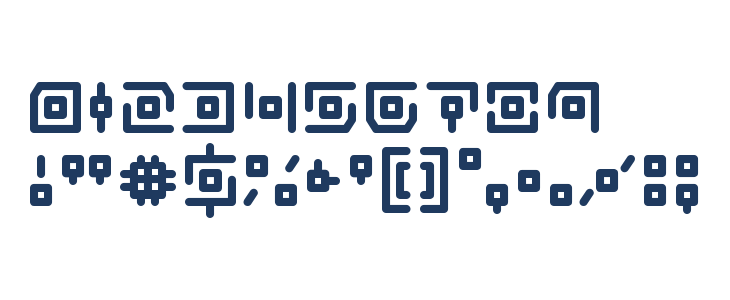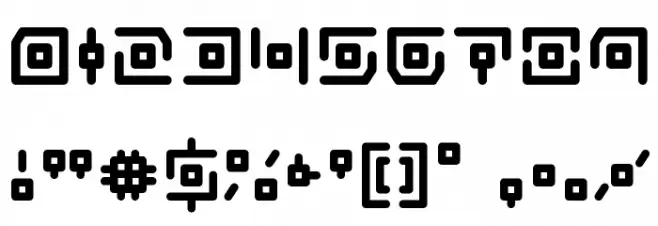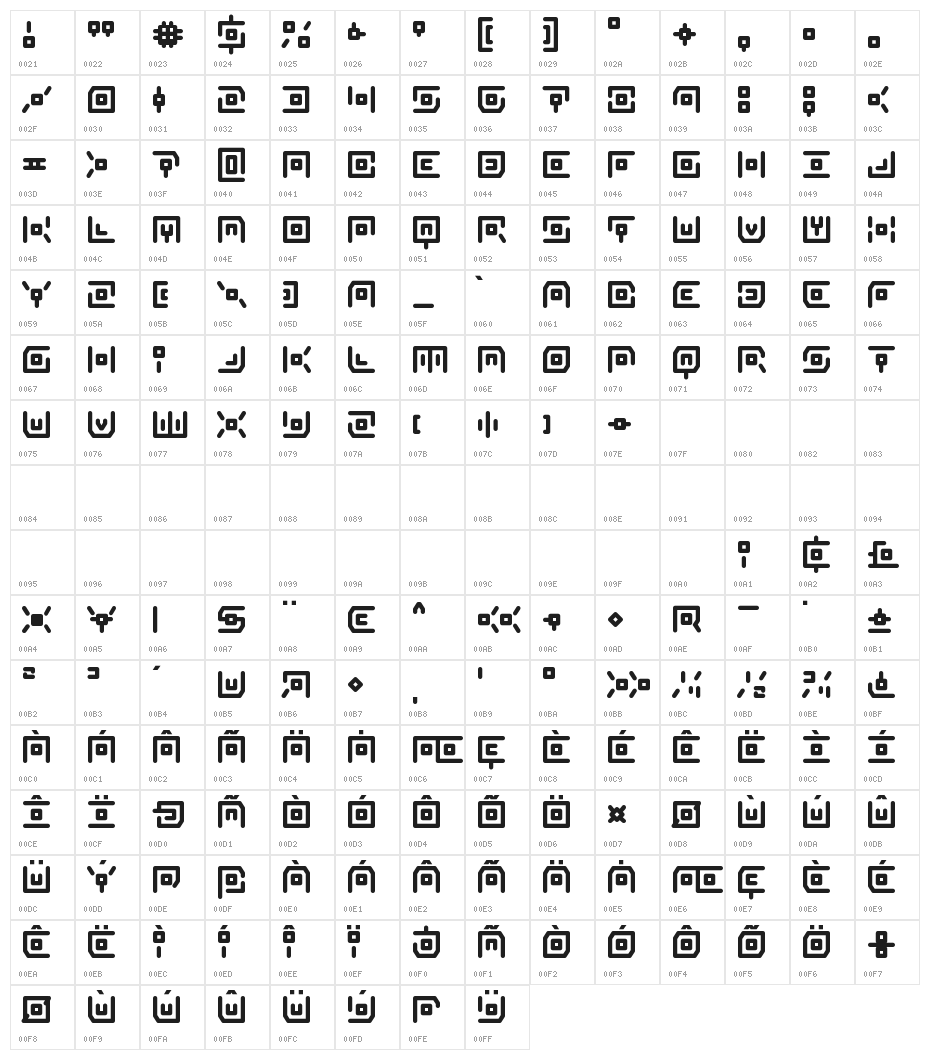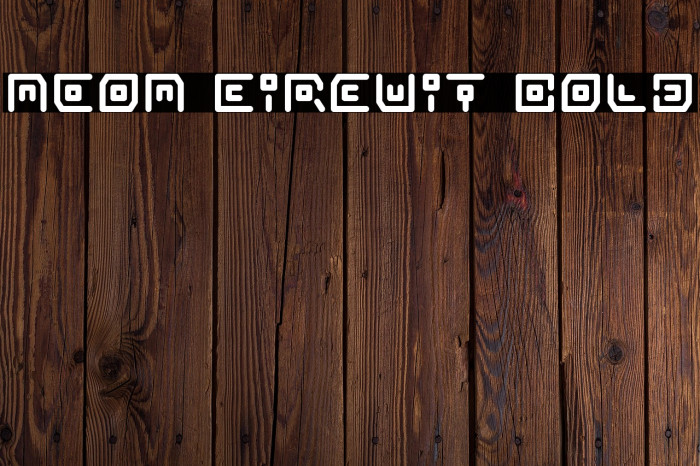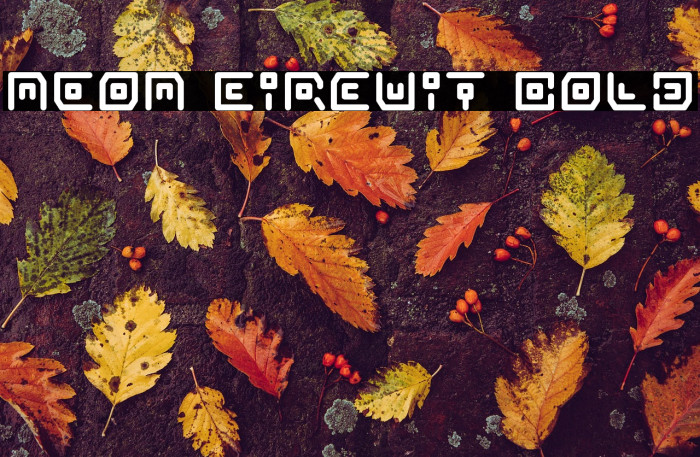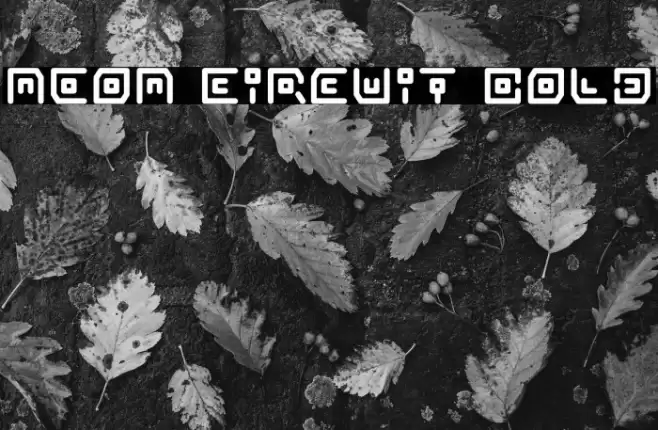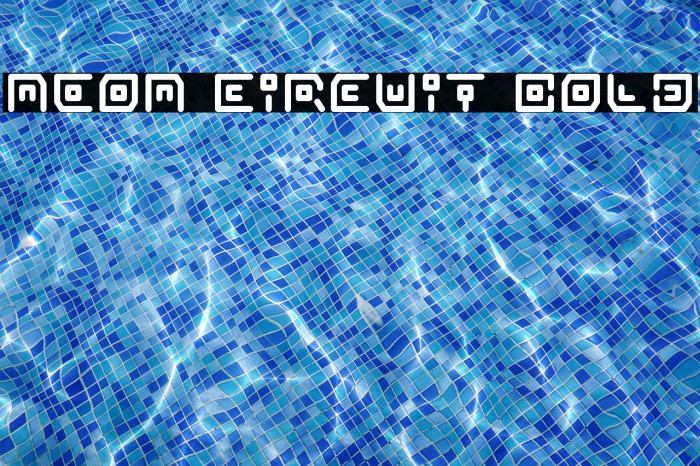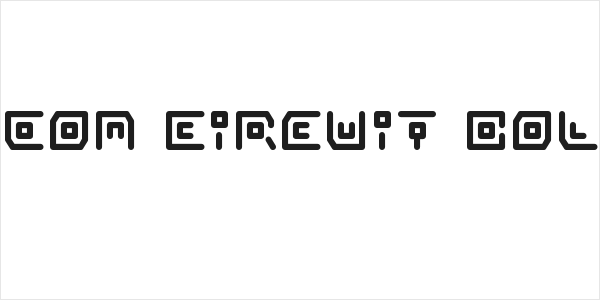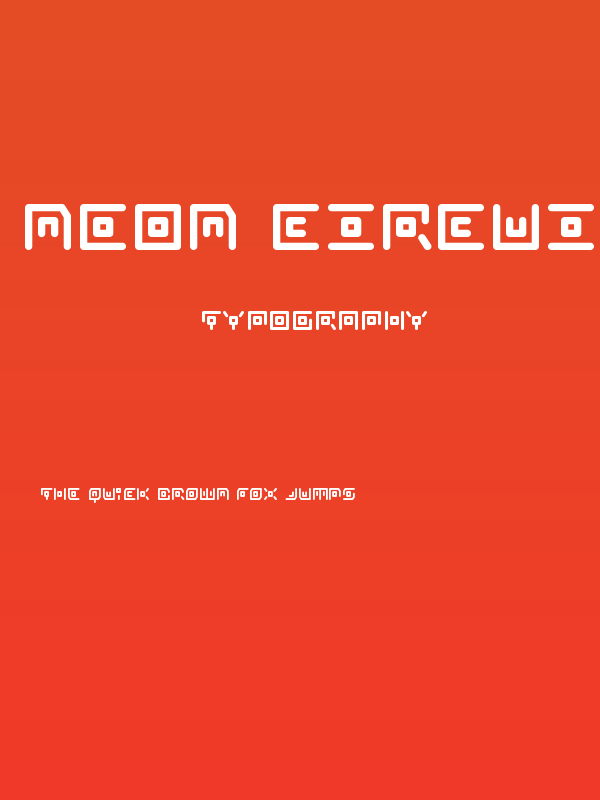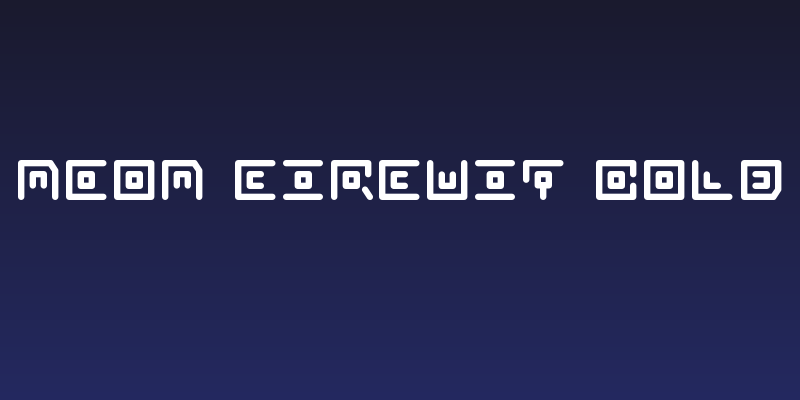
Neon Circuit Bold Font
Neon Circuit Bold Description
This font features a futuristic, circuit-inspired design with bold, geometric shapes. Each character is constructed with a series of interconnected lines and curves, creating a digital, high-tech aesthetic. The bold strokes and angular forms give it a distinctive appearance, reminiscent of neon lights and electronic circuits. The characters are evenly spaced, maintaining a consistent and structured look. This font is ideal for projects that require a modern, technological feel, such as digital interfaces, tech branding, or sci-fi themed designs.